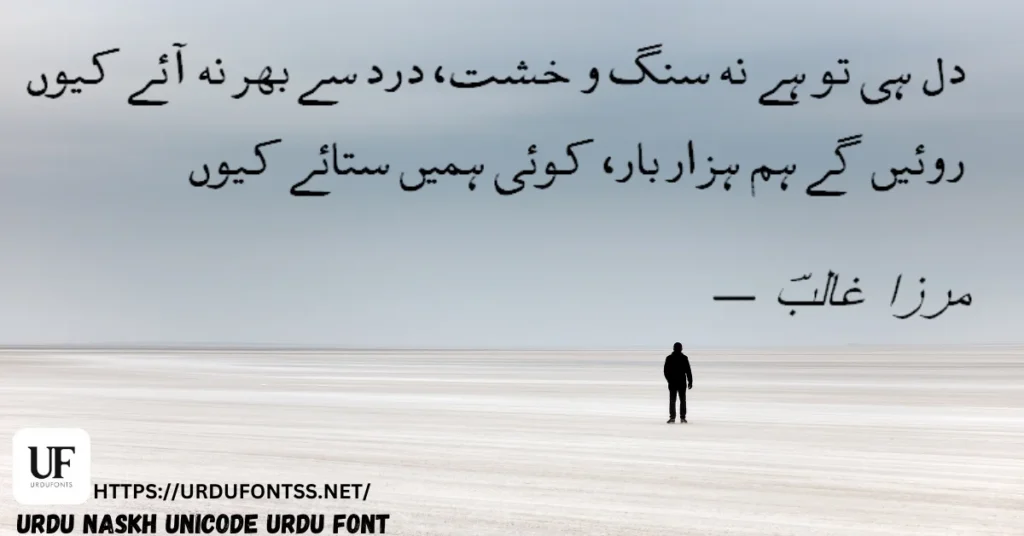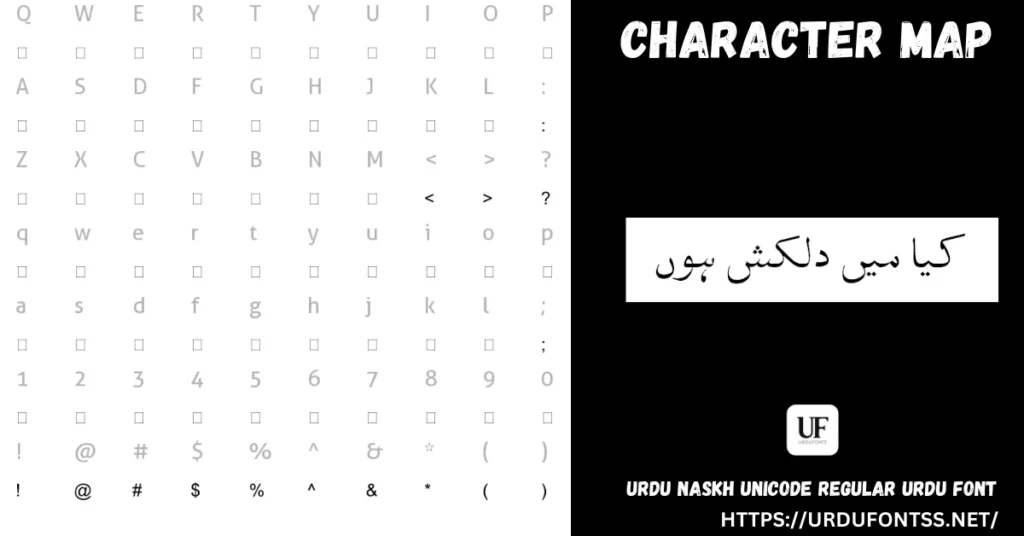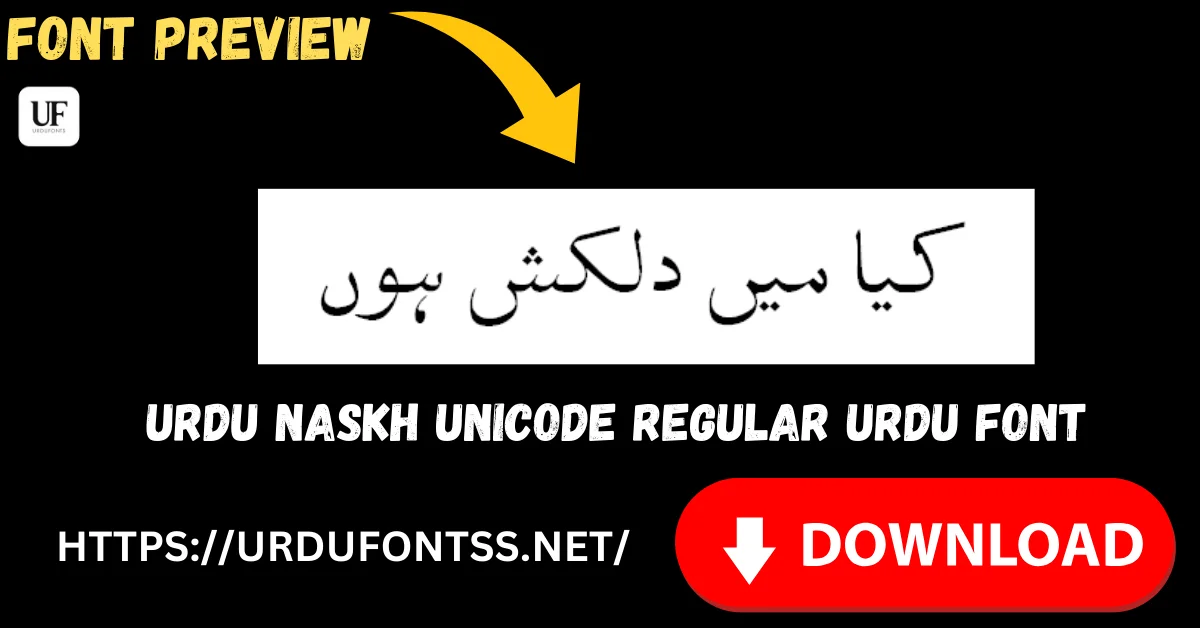
Urdu Naskh Unicode Regular is one of the original Unicode Urdu fonts — a traditional Naskh text face (Version 2.00, January 2005, by Amanat Ali Goher) built so Urdu text stays readable, editable and searchable on every modern device. At a ZIP of about 27 KB it is also one of the lightest downloads on this site. Download the TTF free below and install it on Windows, Mac or Android.
| Style | Naskh — Regular weight, traditional book hand |
| Glyphs | 326 (verified in the font file) |
| Designer | Amanat Ali Goher (verified in the font file) |
The couplet shows why this font lasted: plain, upright Naskh letterforms with even spacing and no decoration — text that disappears into the reading, in print and on screen.
What Makes Urdu Naskh Unicode Different
- Unicode from the start: this font belongs to the generation that freed Urdu from image-based and non-standard encodings — text typed in it can be copied, searched, edited and indexed like any modern text. Our proper Unicode support guide explains why that matters.
- A dated, credited release: Version 2.00 (January 2005) by Amanat Ali Goher — both facts are recorded inside the font file itself, not copied from a listing site.
- The lightest serious download: the whole font arrives in a ZIP of about 27 KB — smaller than most single images on this page — so it installs happily on old machines and slow connections.
- A book hand, not a display face: traditional Naskh forms like those of Urdu books and newspapers, with balanced spacing for long reading.
- Know its size: 326 glyphs cover Urdu’s needs in a compact set; if your work mixes heavy Arabic vocalisation or many languages, a larger-coverage font such as Scheherazade (compared below) serves better.
Best Uses for Urdu Naskh Unicode Regular
- Everyday Urdu typing — documents, letters and forms in MS Word.
- Websites and blogs — genuine Unicode body text that search engines can read and index.
- Books and publishing — traditional Naskh interiors for Urdu literature and educational texts.
- Study material — notes, handouts and assignments for students and teachers.
It sits on the Naskh shelf of the Urdu fonts category. If you need the sloping Nastaliq style instead, see the Urdu Nastaliq Unicode Regular font — a different style for a different look, and not this font.
Urdu Naskh Unicode Regular vs Similar Fonts
| Font | How It Differs |
|---|---|
| Scheherazade Regular | SIL International’s Arabic-script text font with 1,197 glyphs — far wider coverage for vocalised and multilingual text, in a bigger file (about 111.5 KB). Choose it for Arabic-heavy work; Naskh Unicode for light everyday Urdu. |
| AA Sameer Almas | Another clean document Naskh (431 glyphs, Version 1.20) aimed at Word and InPage. Set the same paragraph in both and keep the line your readers prefer. |
| Tehreer Regular | A more modern, design-led Urdu typeface with 689 glyphs. Tehreer feels contemporary; Naskh Unicode is the traditional book hand. |
What is the difference between Naskh Unicode and Nastaliq Unicode?
Style. Naskh (this font) is the flatter, book-style script; Nastaliq slopes diagonally and is the classic Pakistani print style. They are different fonts — this site has a separate page for Urdu Nastaliq Unicode Regular.